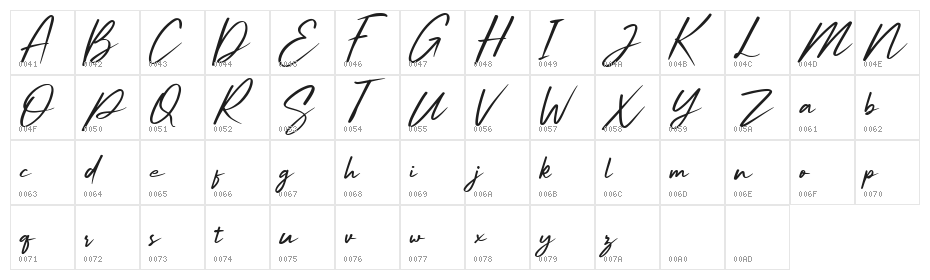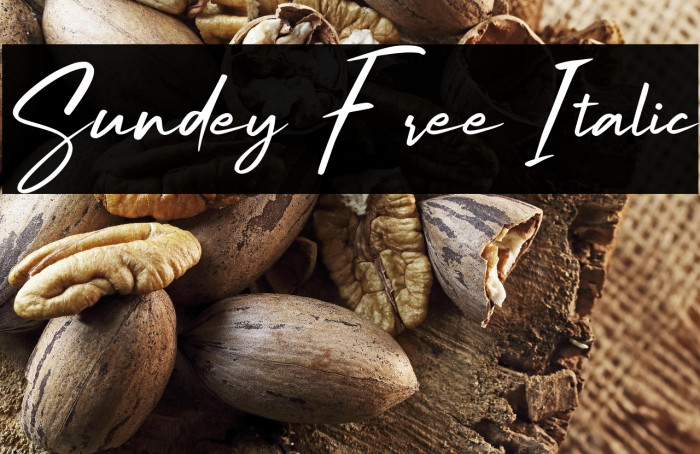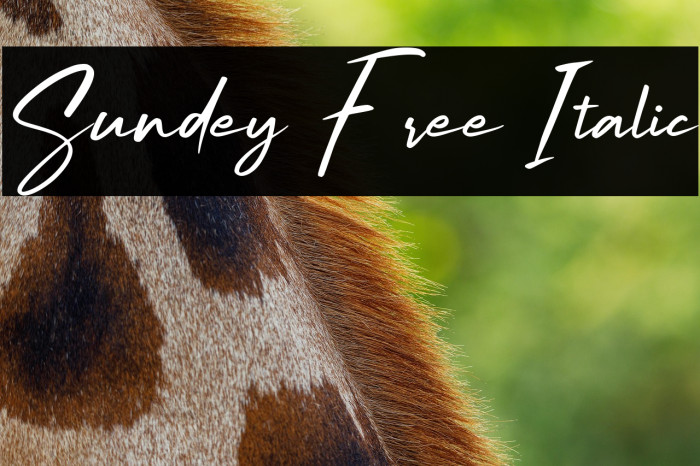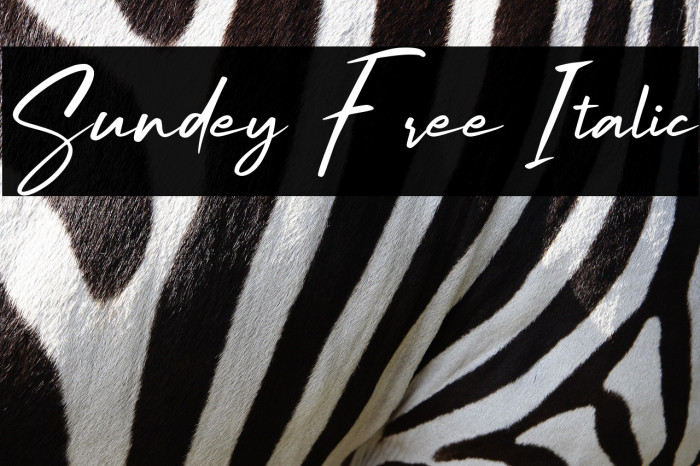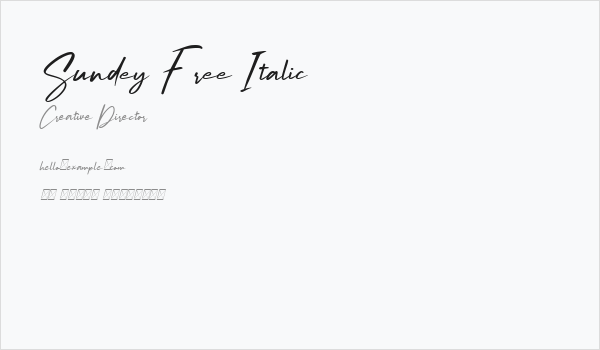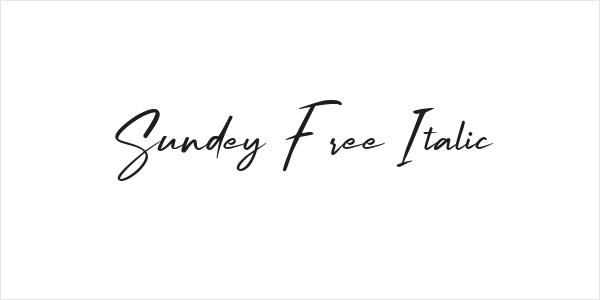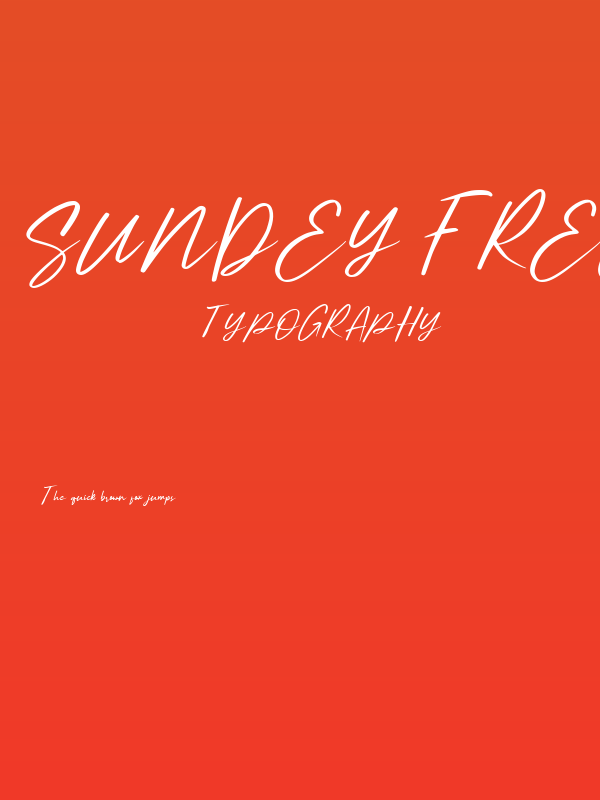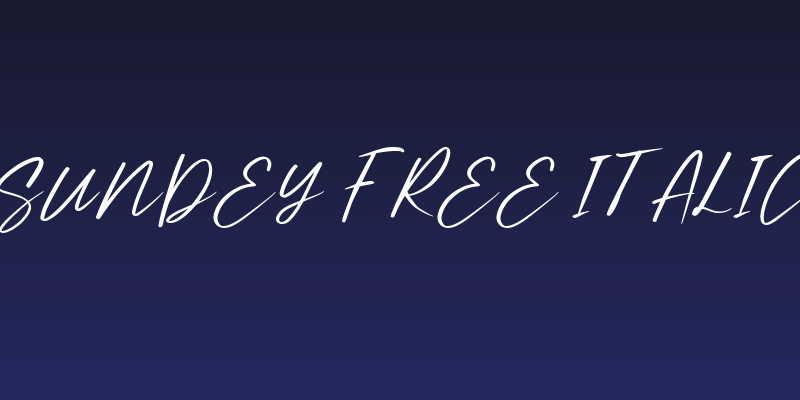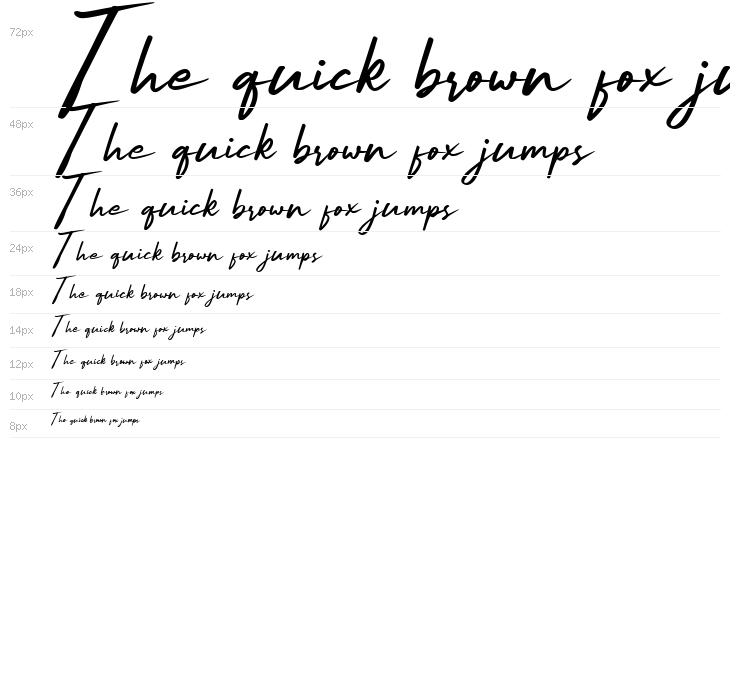
Sundey Free Italic Font
Sundey Free Italic Description
This font features a dynamic and flowing script style, characterized by its elegant, cursive letterforms. The strokes are smooth and connected, giving it a handwritten appearance that is both stylish and approachable. The uppercase letters are slightly more formal, with a consistent slant and graceful curves, while the lowercase letters maintain a casual, yet sophisticated look. The font's italic nature enhances its fluidity, making it ideal for projects that require a personal touch. Its overall design is modern, with a hint of classic calligraphy, making it versatile for various creative applications.
Use CaseLogos, Headlines, Invitations
Proposed ProjectsIdeal for wedding invitations, greeting cards, branding, and social media graphics.